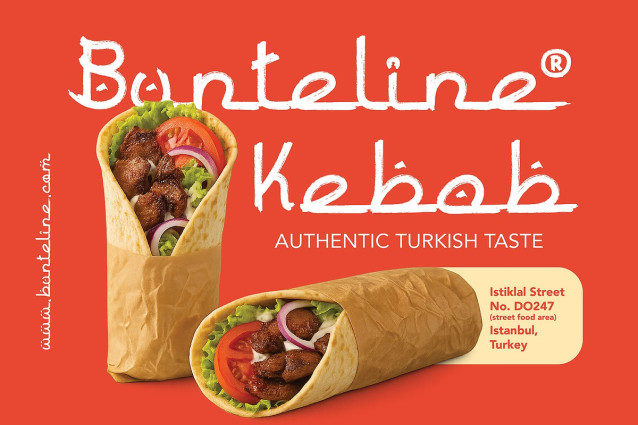
Mardin Brush Font
Mardin Brush Font is a handcrafted brush script font inspired by the graceful flow of Arabic calligraphy. With bold, expressive strokes and fluid curves, Mardin captures the spirit of traditional Arabic letterforms while remaining fully legible in Latin characters — making it perfect for modern design projects that seek a cultural, exotic, or artistic vibe.